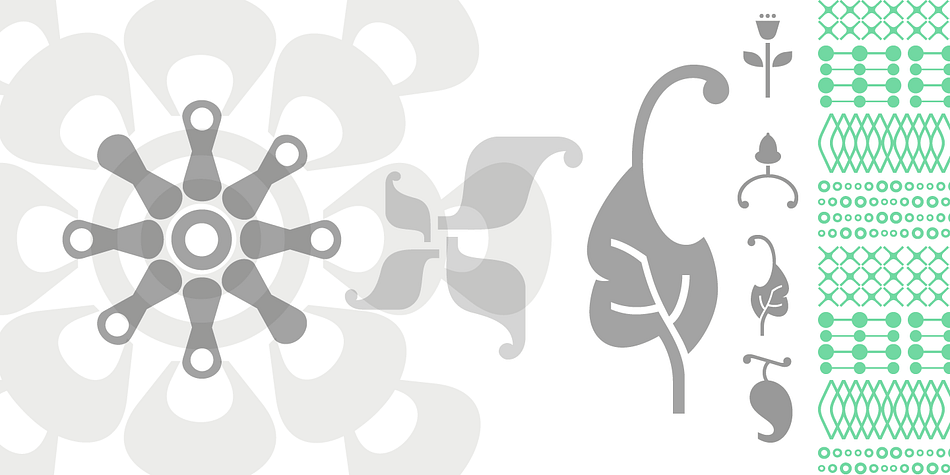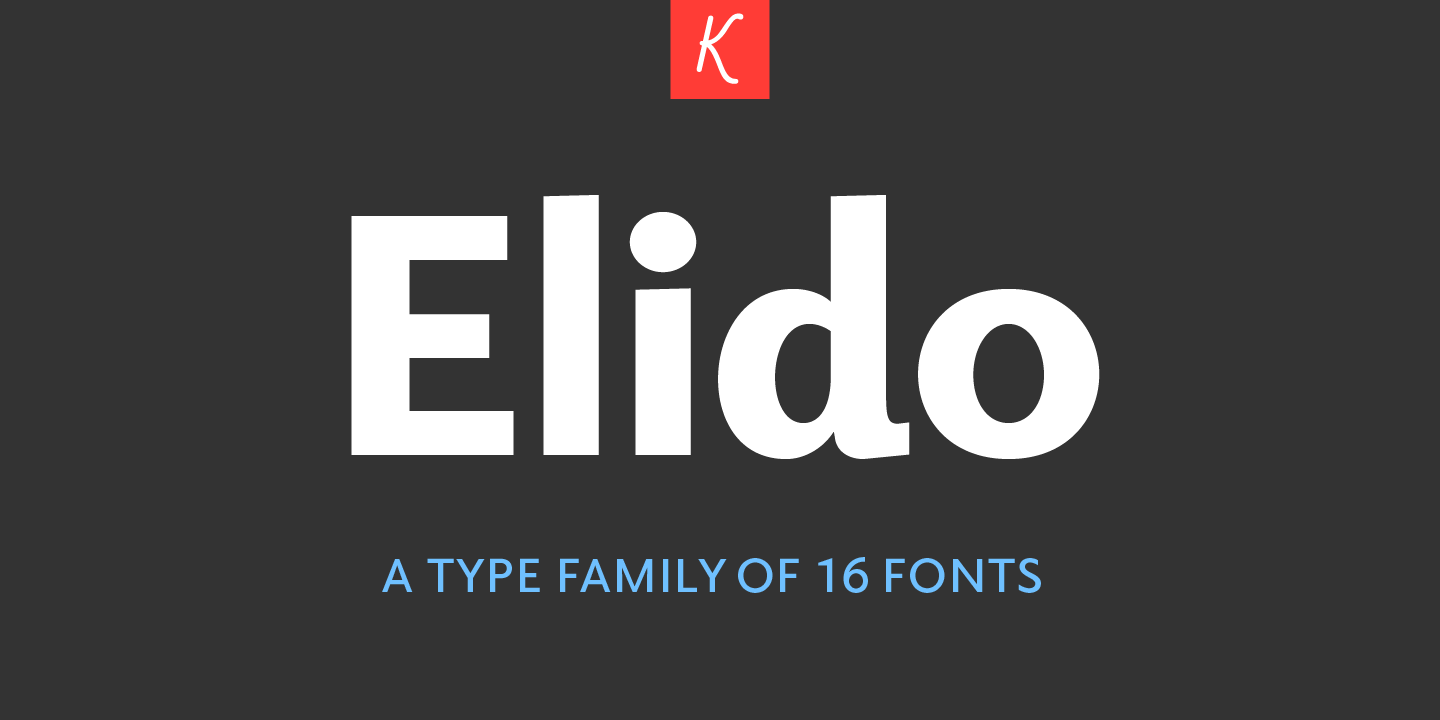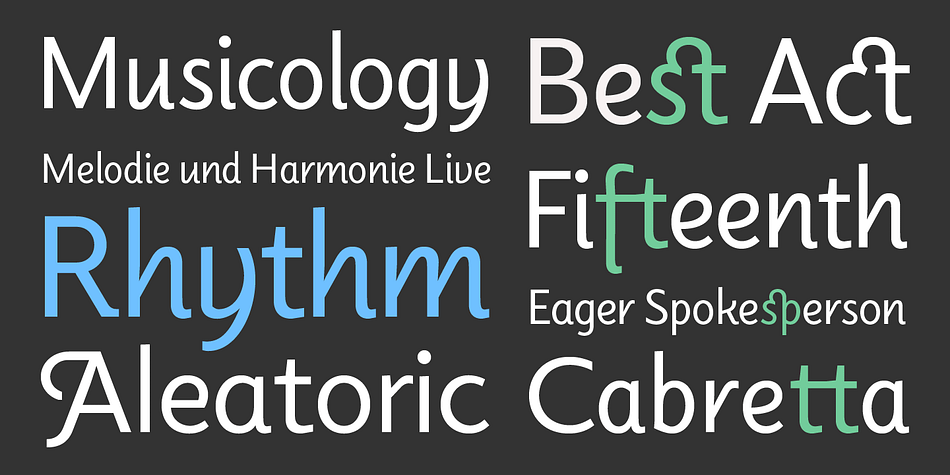
Elido
Designed by Sibylle Hagmann, Elido is a dingbat, sans serif and display sans font family. This typeface has sixteen styles and was published by Kontour.
Elido™ (Odile in reverse) is the sans counterpart to the Odile type.
Together they form a sans and serif superfamily with a wide range of variations for editorial and display use.
Elido follows Odile’s proportions and matches the weight and typographic color of its serif twin.
Elido is a sans with classical proportions.
Odile’s conceptual approach is echoed in the structure and relations of the Elido family.
The arched stroke low off the stem reveals a script characteristic most pronounced in the Elido Upright Italic.
Elido™ (Odile in reverse) is the sans counterpart to the Odile type. Together they form a sans and serif superfamily with a wide range of variations for editorial and display use.
Elido follows Odile’s proportions and matches the weight and typographic color of its serif twin. Elido is a sans with classical proportions. Odile’s conceptual approach is echoed in the structure and relations of the Elido family.
The arched stroke low off the stem reveals a script characteristic most pronounced in the Elido Upright Italic. This particular interpretation is gradually diminished in the Italic and becomes even less emphasized in the Regular.
Six balanced weights, from an elegant Light to a pronounced Black are in tune with three display solutions and a set of beautiful Ornaments. Sans serif initials amount to a rare finding. The charming mono-linear Elido Initials come in two flavors, elaborate and rational, designed to hold their own in editorial and headline sizes. This type design boasts an extensive character set, many OpenType features. OT stylistic variants (with accents) offer a one-storey ‘a’ for the roman weights, alternate ‘g’ and ‘s’ designs for the italics, and a variant glyph ‘s’ for the Upright Italic.
These distinct qualities with its versatile and sincere traits make Elido an excellent choice for text and display use.